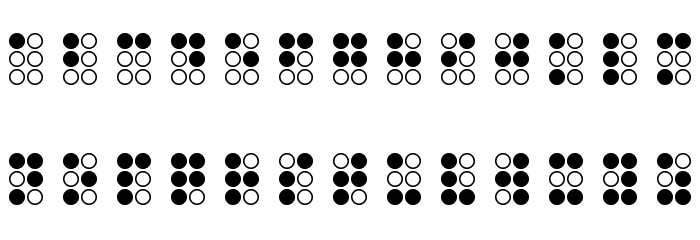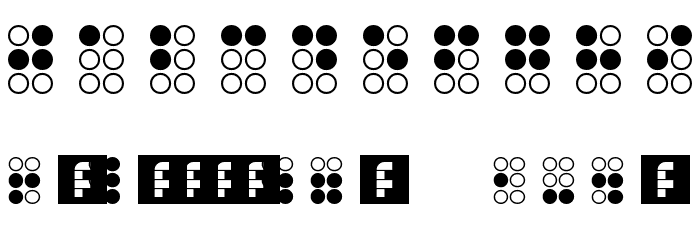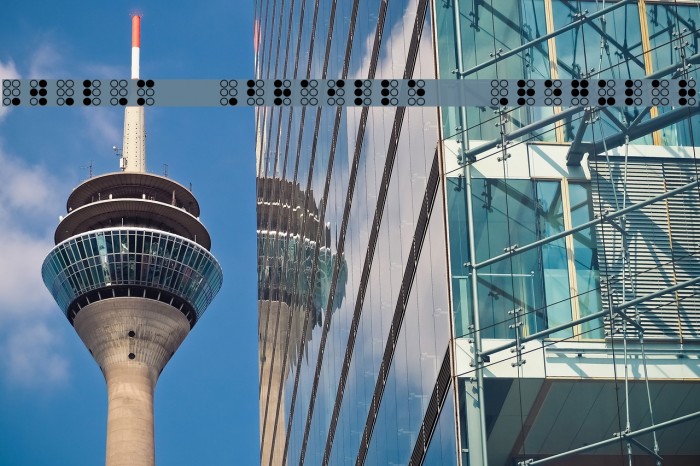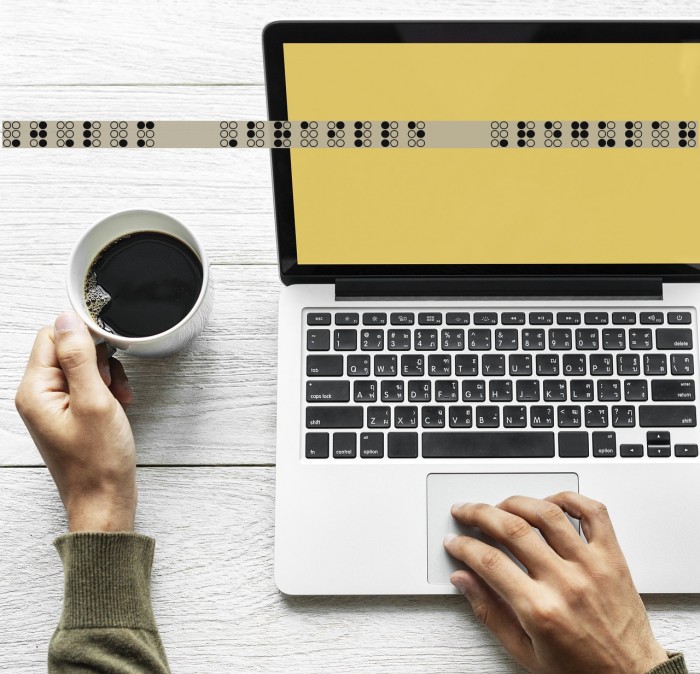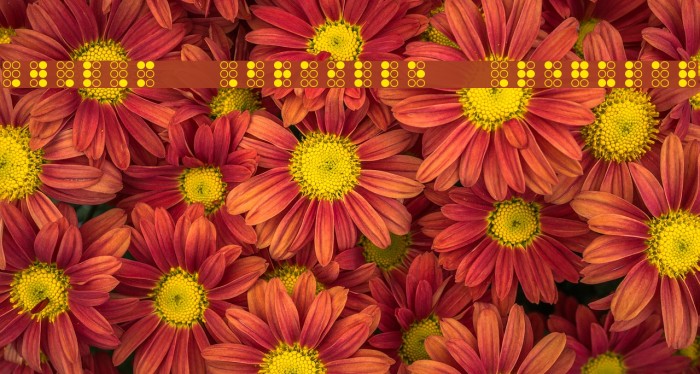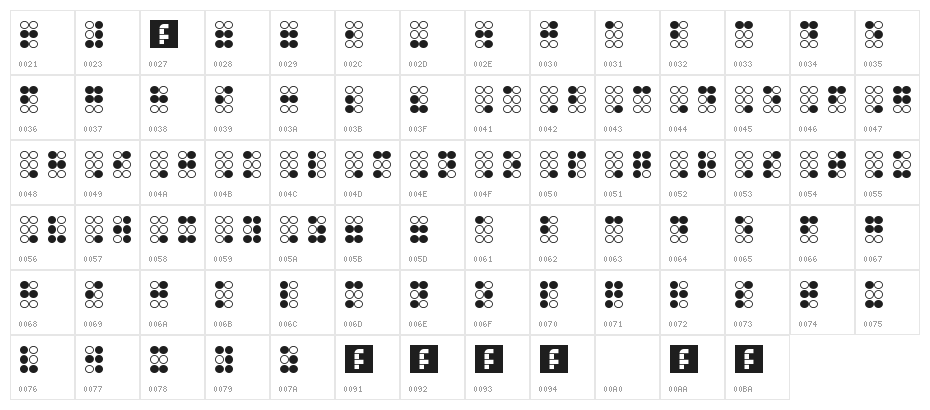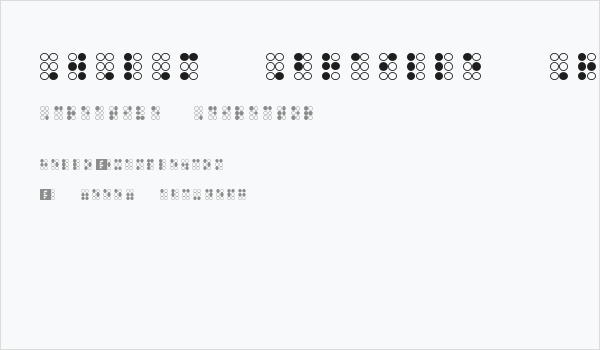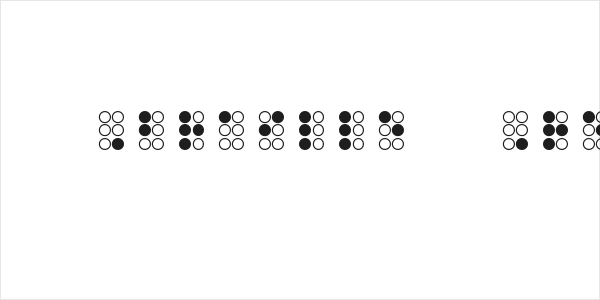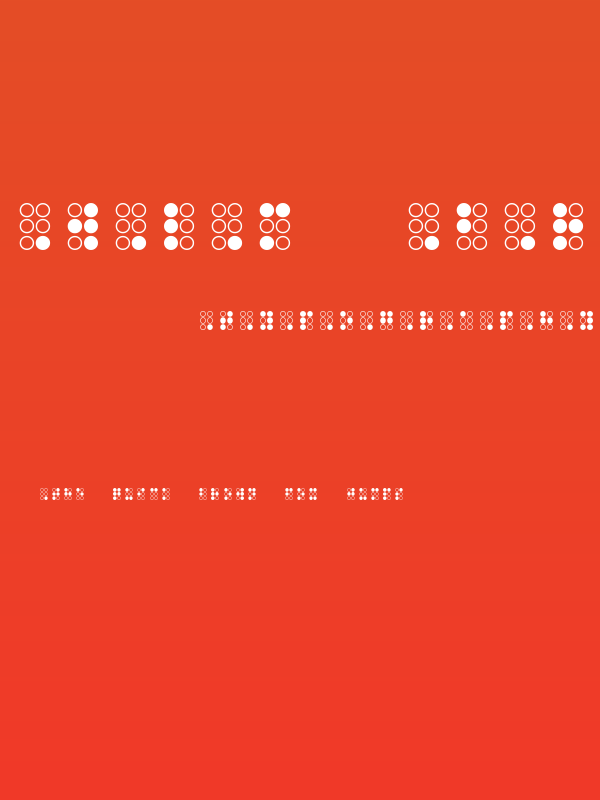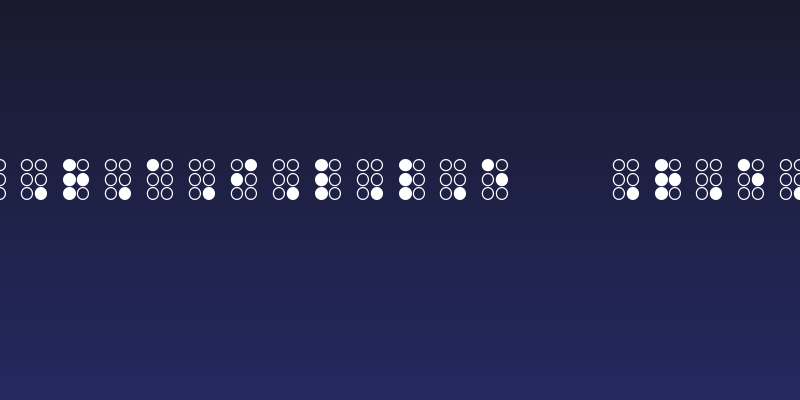
WLM Braille Regular Font
This font is a visual representation of Braille, featuring a series of dots arranged in cells. Each character is formed by a combination of raised and non-raised dots, creating a tactile writing system used by visually impaired individuals. The design is minimalistic and functional, focusing on clarity and readability. The dots are evenly spaced, providing a consistent and uniform appearance across all characters. This font is not intended for traditional visual reading but rather for educational or design purposes where Braille representation is needed.
A visual representation of Braille with uniform dot arrangements.
- Proposed Projects: Ideal for educational materials, accessibility design projects, or any work requiring Braille representation.
- Overall Style: Functional
- Use Case: Educational materials, Accessibility design